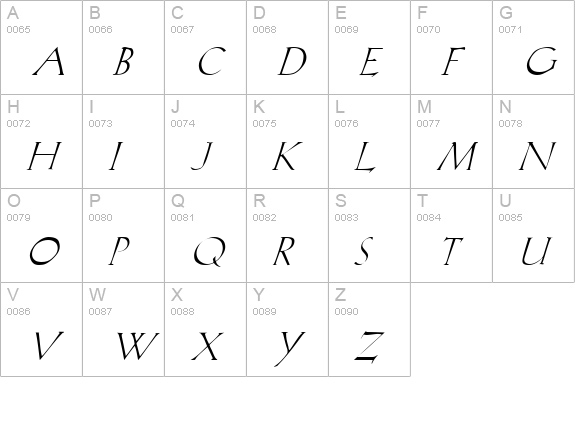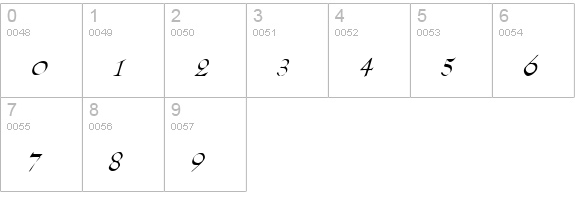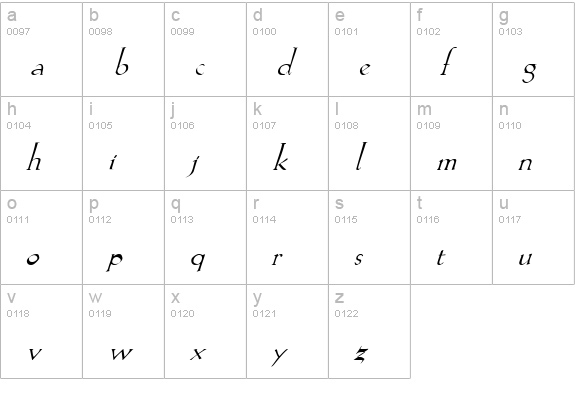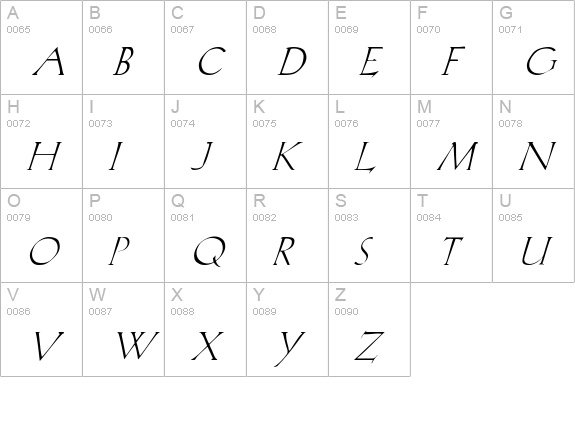
Lilith Italic is a distinctive, italic variant in the Lilith typeface family \xE2\x80\x94 well suited to design and typography projects.
Lilith Italic font is a stunning and elegant typeface that exudes sophistication and style. Its sleek and modern design is perfect for adding a touch of class to any project. The italicized letters offer a unique and dynamic look that will make your text stand out. What makes Lilith Italic font even more appealing is that it is completely free to download. You can easily access this beautiful font at FontsMarket.com, where you can enhance your designs with this eye-catching typeface without any cost. With its combination of beauty and accessibility, Lilith Italic font is a must-have for any designer looking to elevate their work.